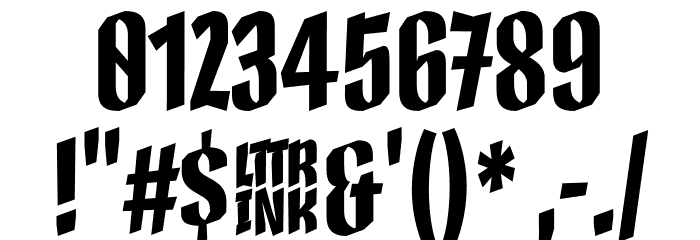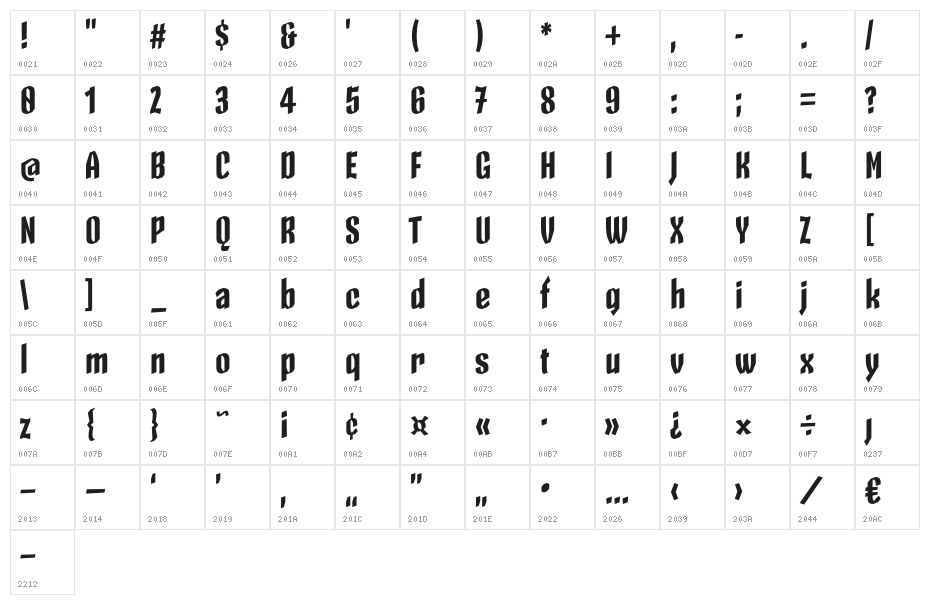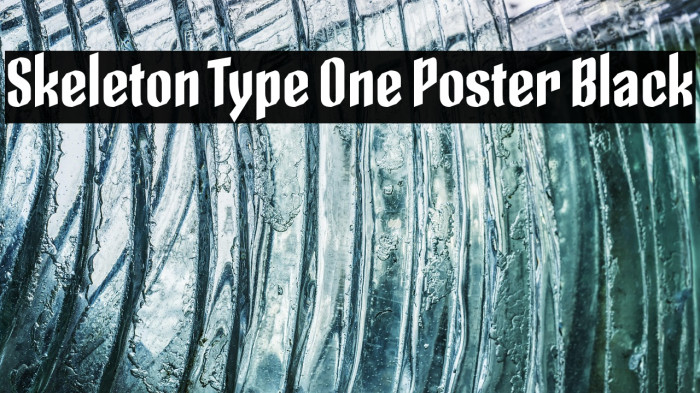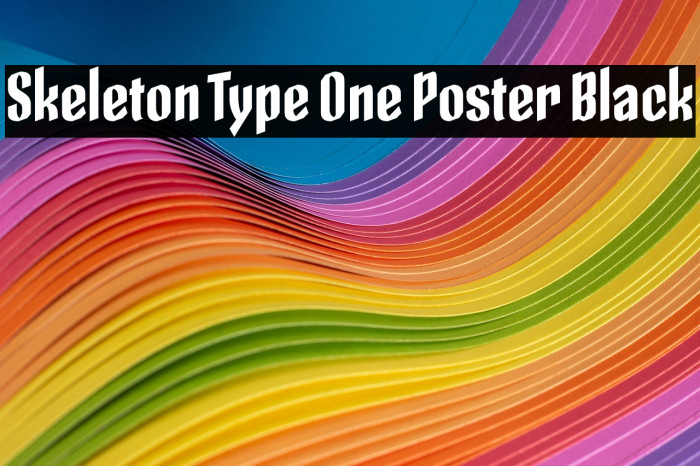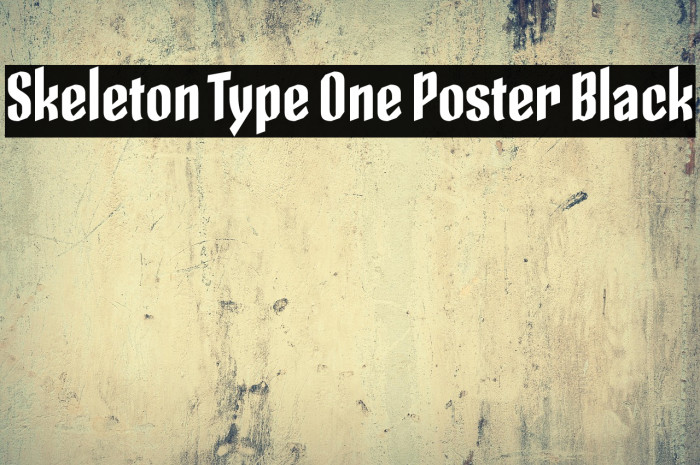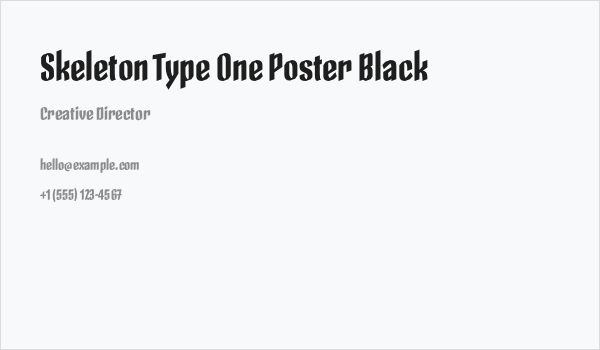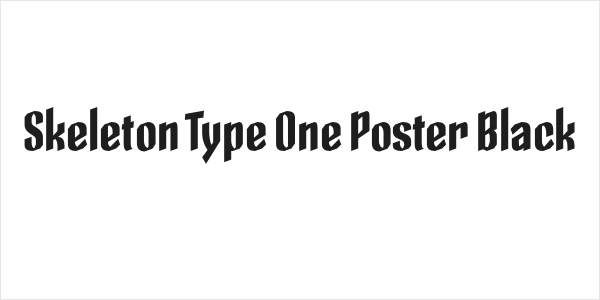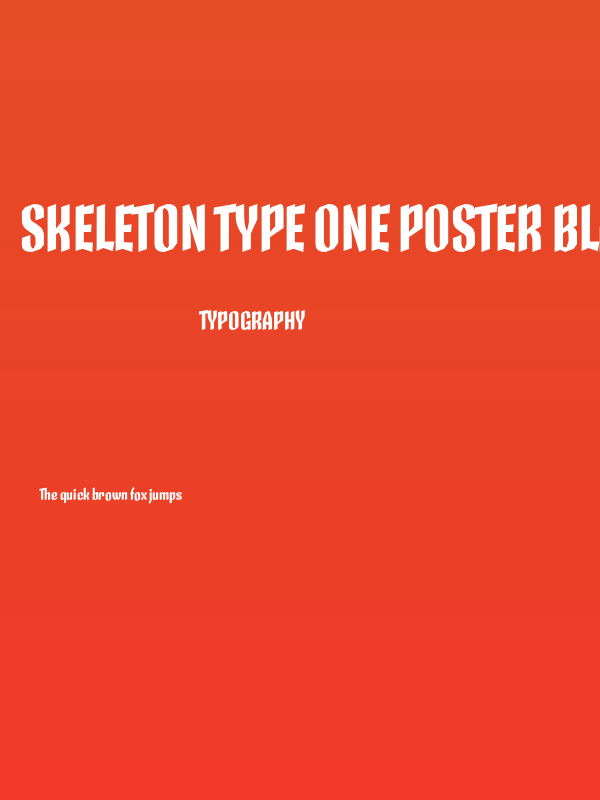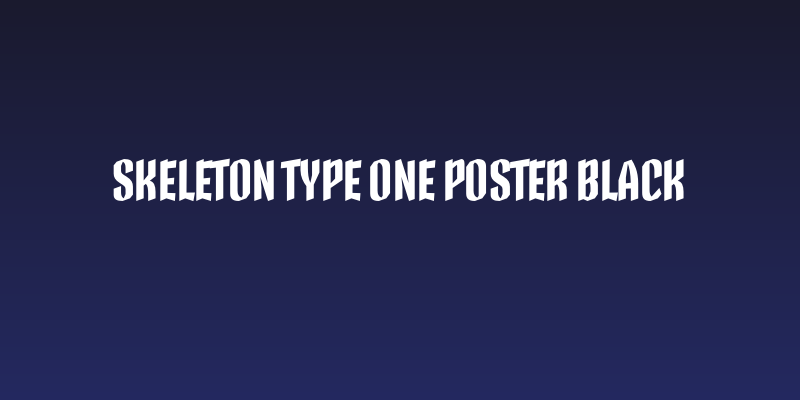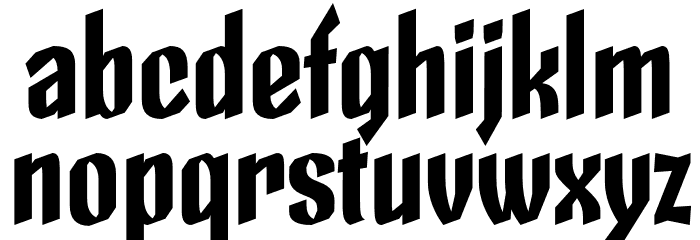
Skeleton Type One Poster Black Font
Skeleton Type One Poster Black Description
This font features a bold and striking design with sharp, angular edges and a slightly condensed form. The uppercase letters are particularly prominent, with a strong vertical emphasis and a distinctive, edgy style that commands attention. The lowercase letters maintain the same angular aesthetic, creating a cohesive look across the entire alphabet. Numbers and special characters follow suit, offering a consistent visual experience. The overall appearance is modern and dynamic, making it suitable for projects that require a bold statement.
| Proposed Projects | Ideal for posters, headlines, branding, and any project needing a bold, impactful typeface. |